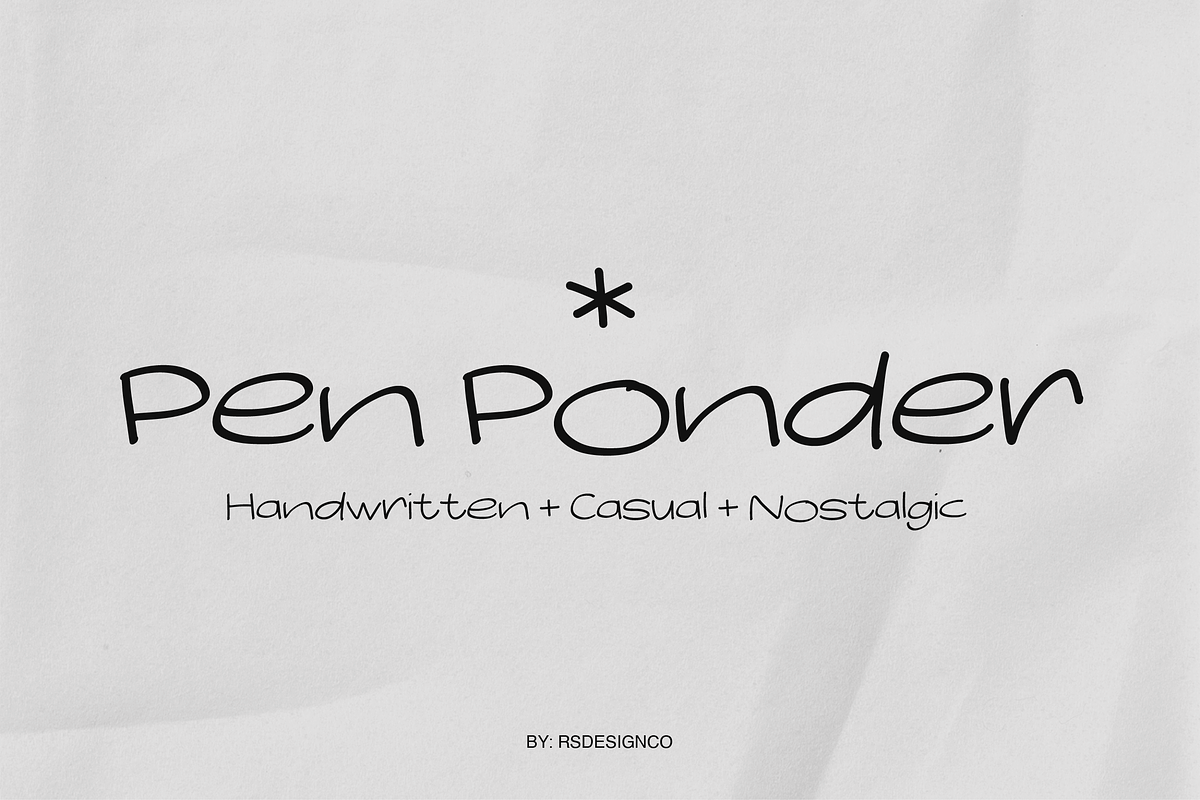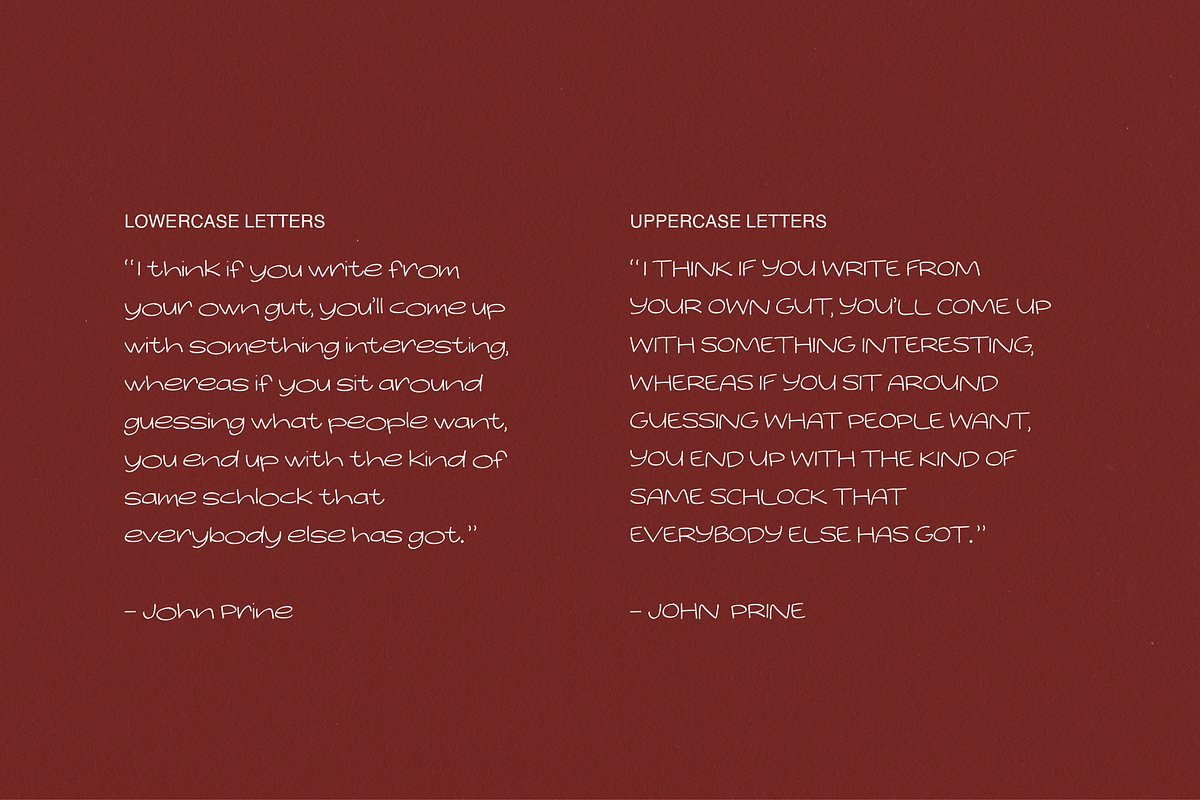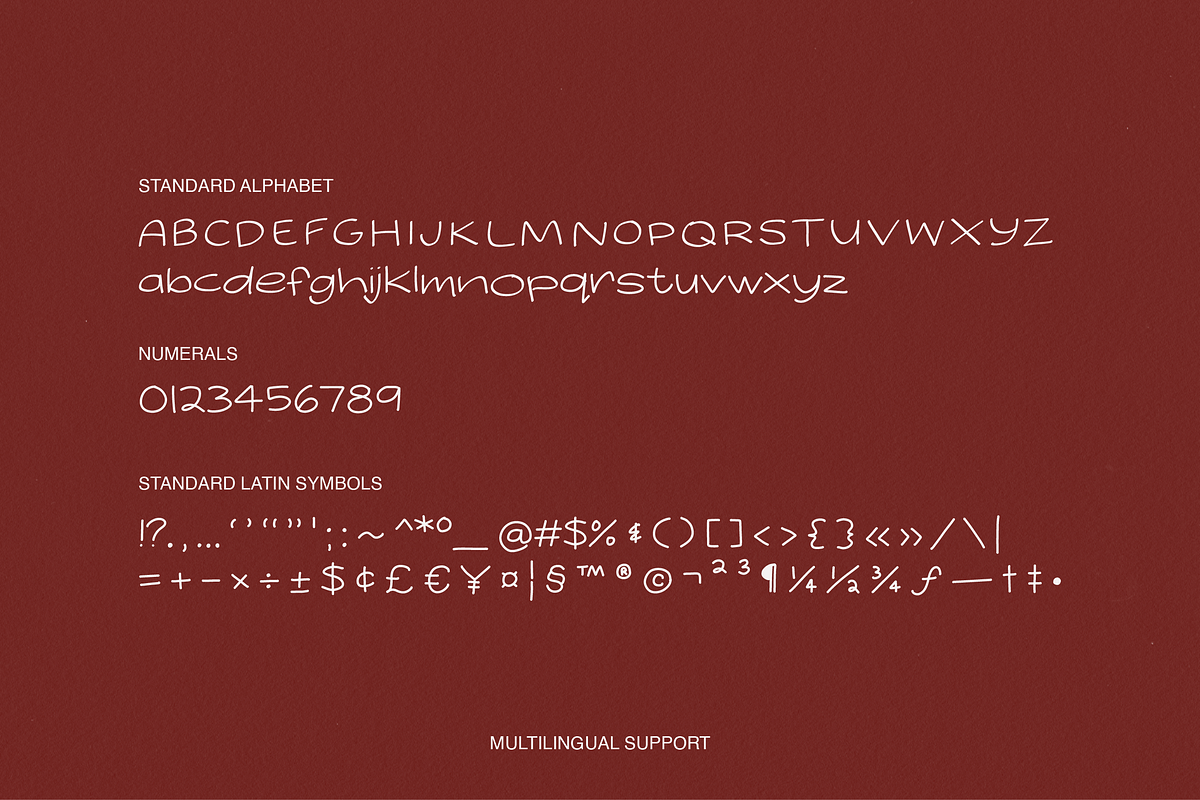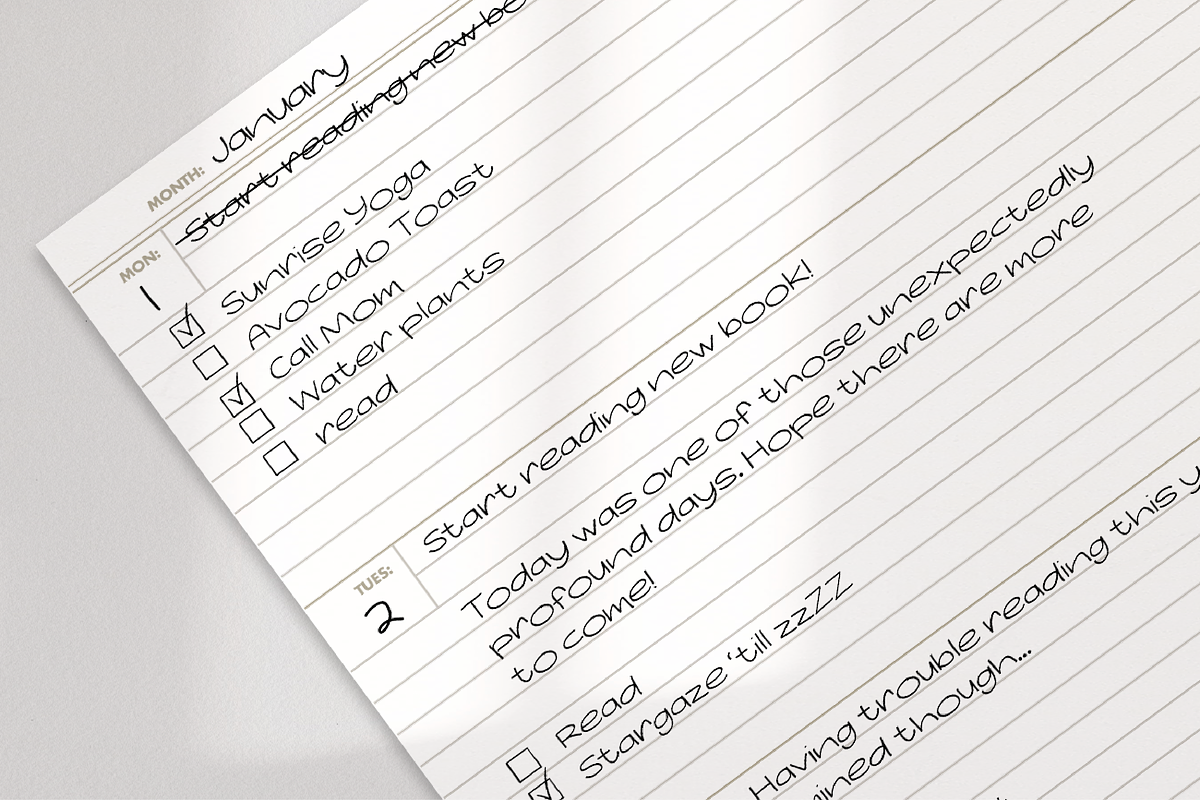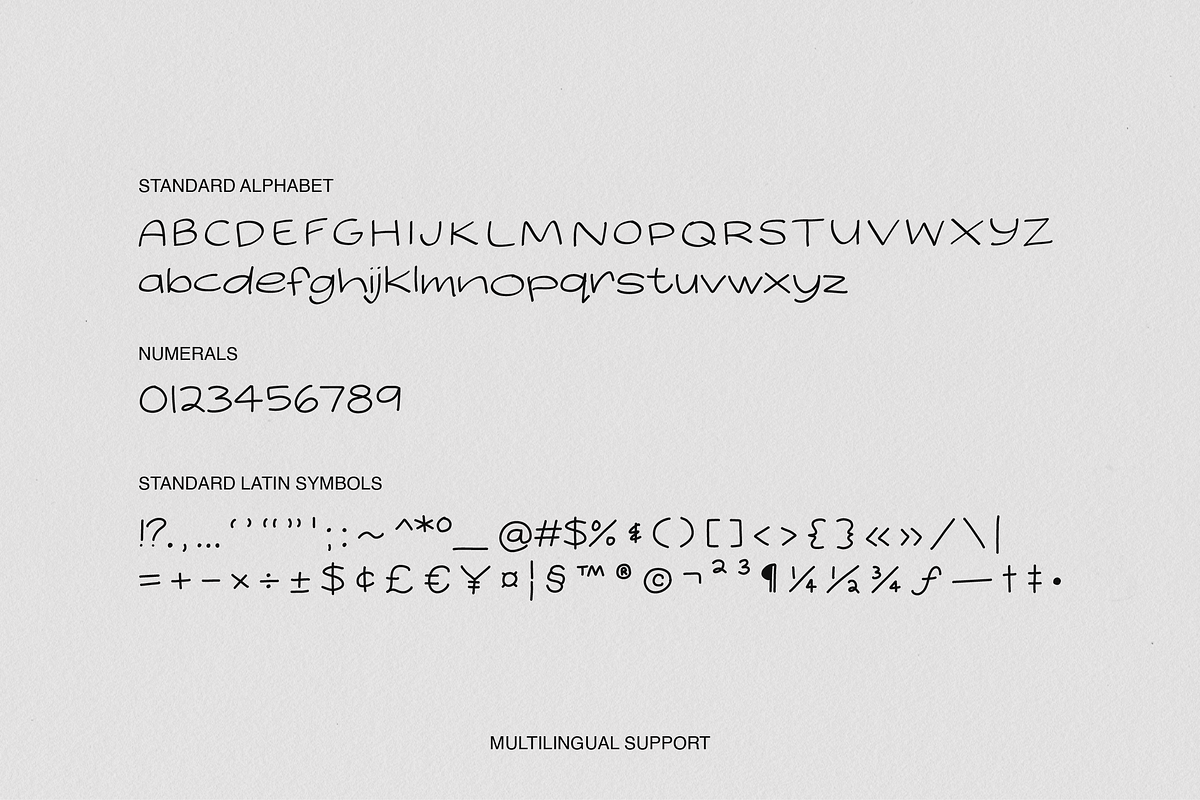
Pen Ponder | Handwritten Font
Bring a touch of vintage flair to your designs with Pen Ponder, a casual handwritten font that evokes the warmth and personality of mid-20th-century penmanship. Pen Ponder offers an authentic, handcrafted feel perfect for projects seeking a nostalgic touch.
- Retro-inspired logos and branding that call for a personal, handwritten touch
- Greeting cards, invitations, and stationery with a cozy, human feel
- Vintage-themed posters, journaling, scrapbooks, and crafts
- Social media graphics and quotes that need a warm, nostalgic vibe
- Any design seeking to capture the look of authentic hand-written lettering
- Uppercase and lowercase (A–Z, a-z) characters drawn with natural, uneven strokes
- Numerals, symbols, and multilingual support
Put personality on paper (or screen) with Pen Ponder. 🖋️